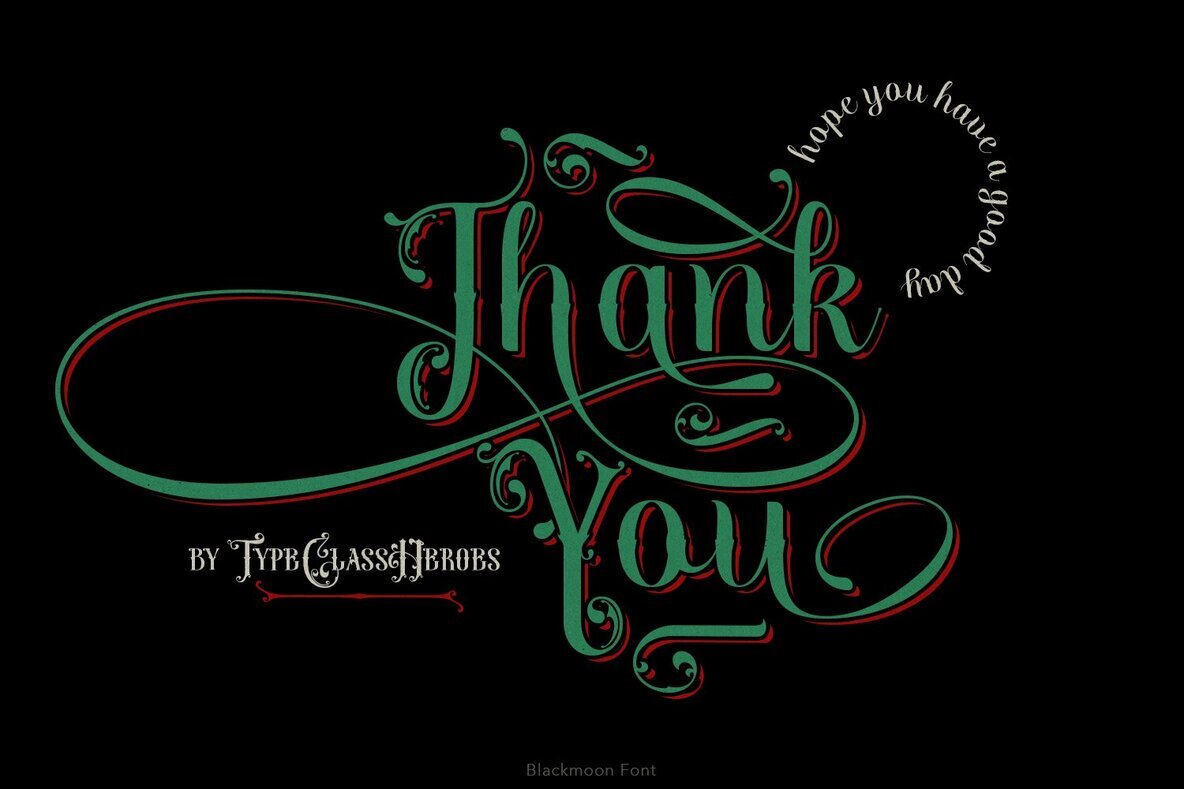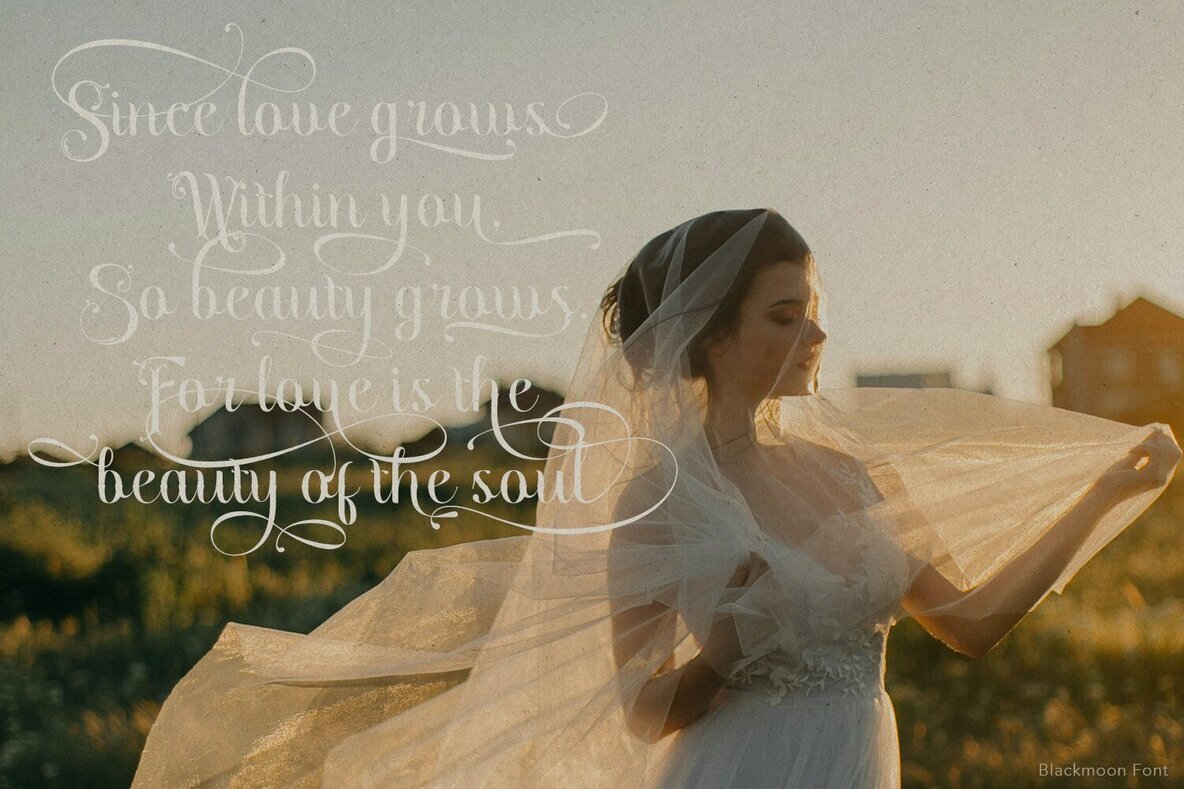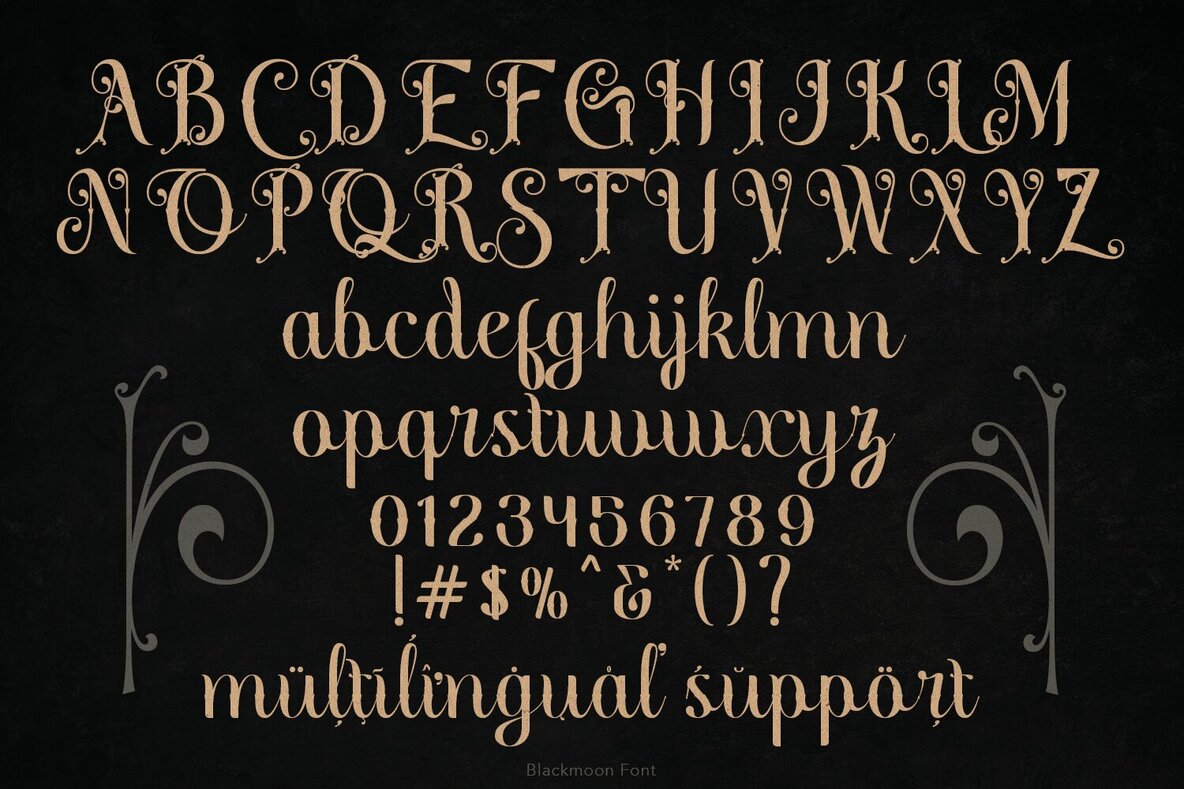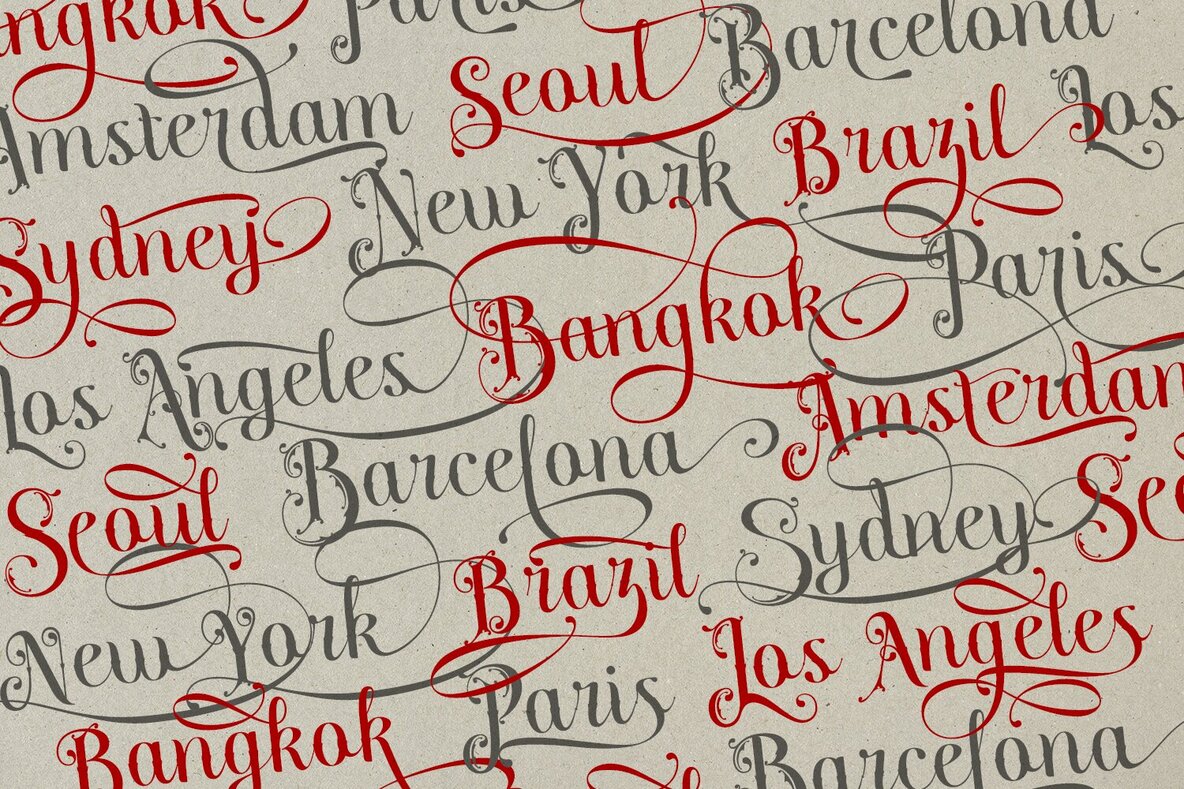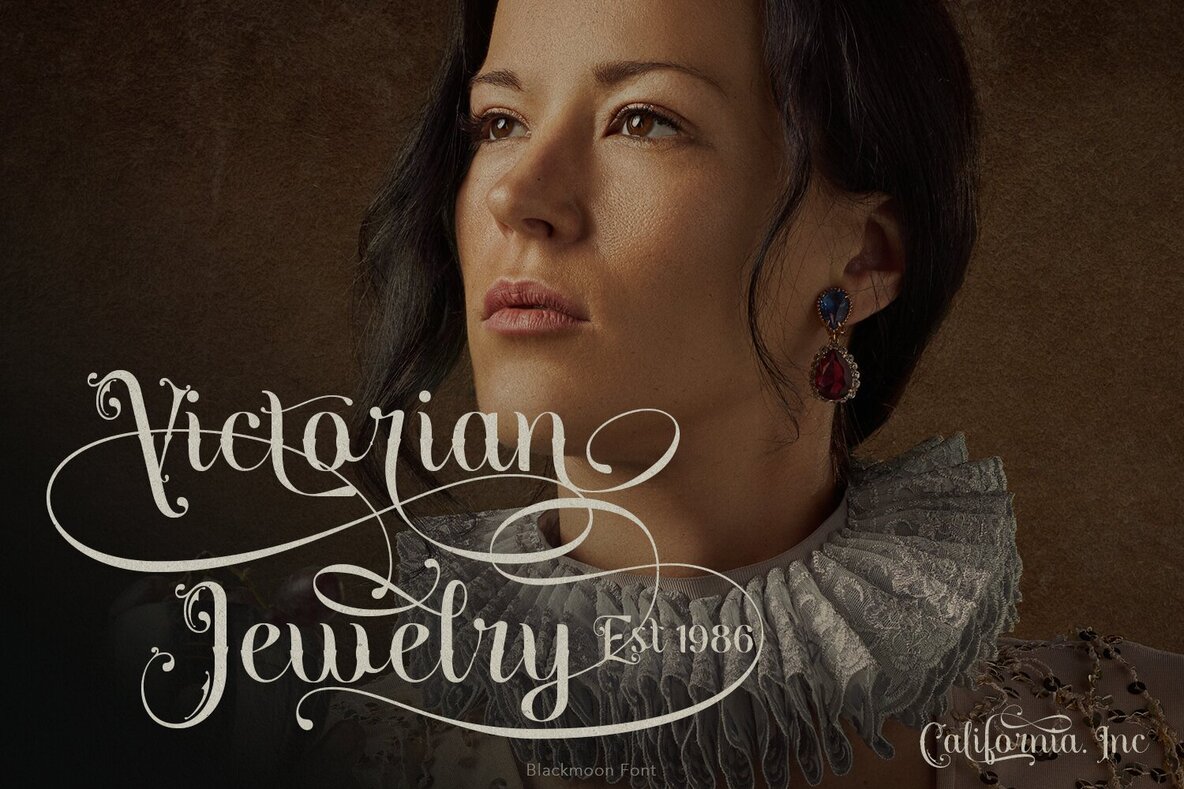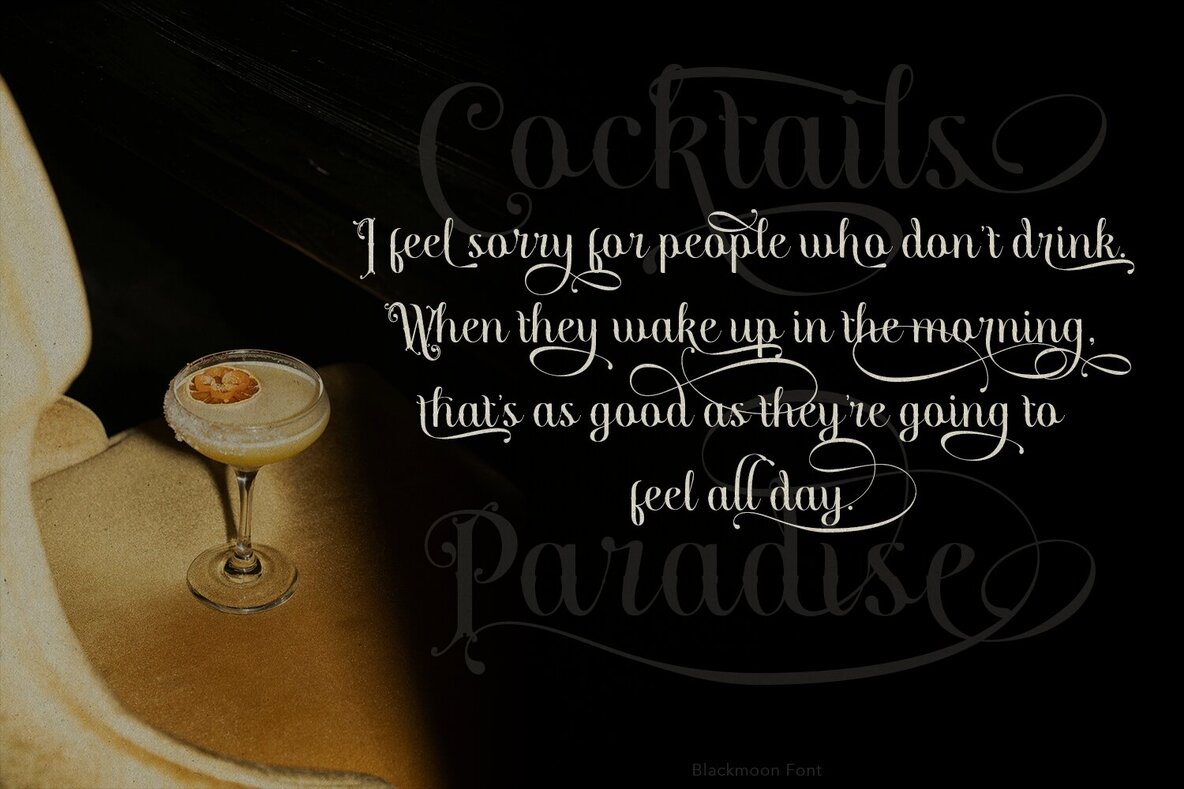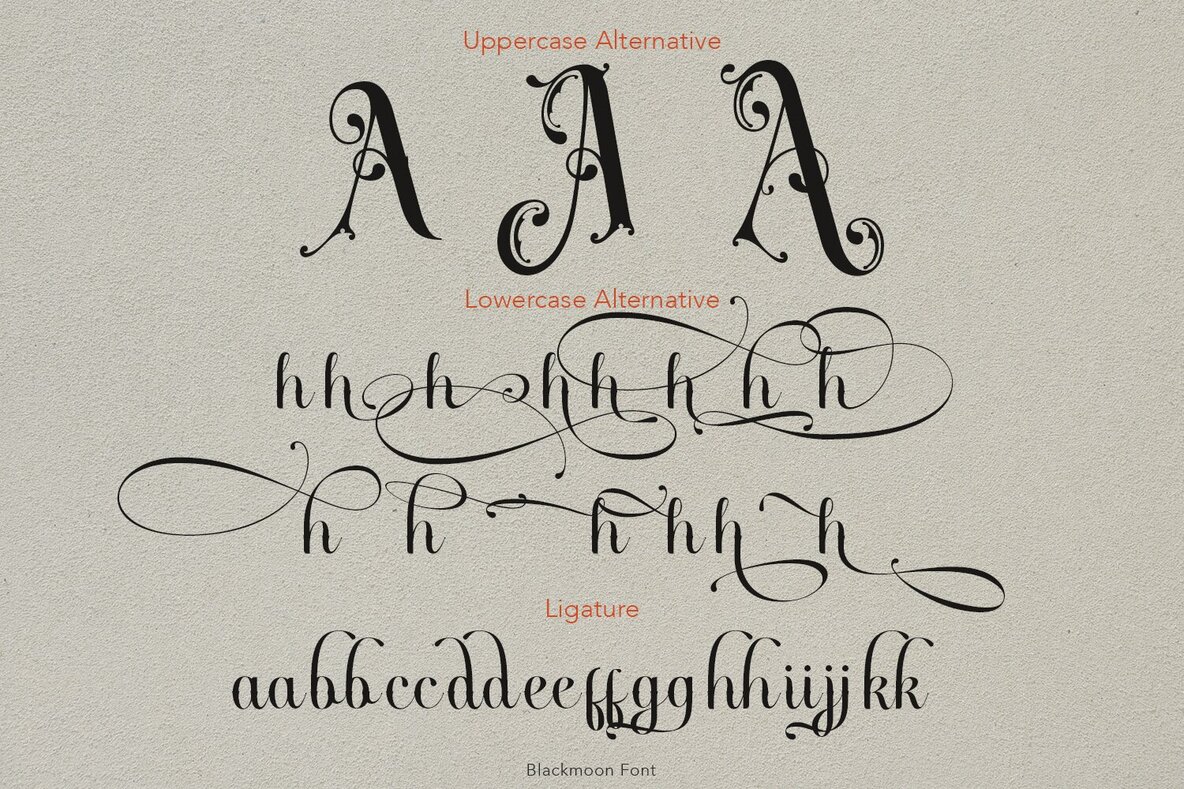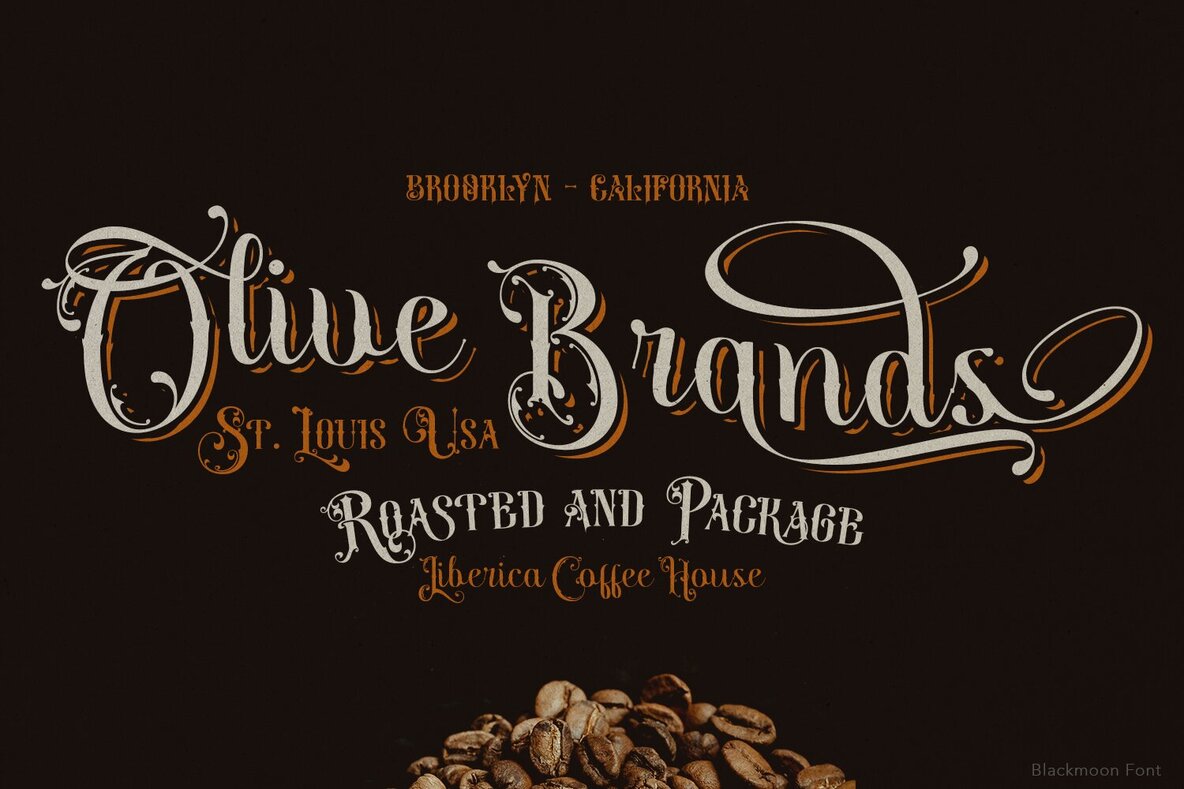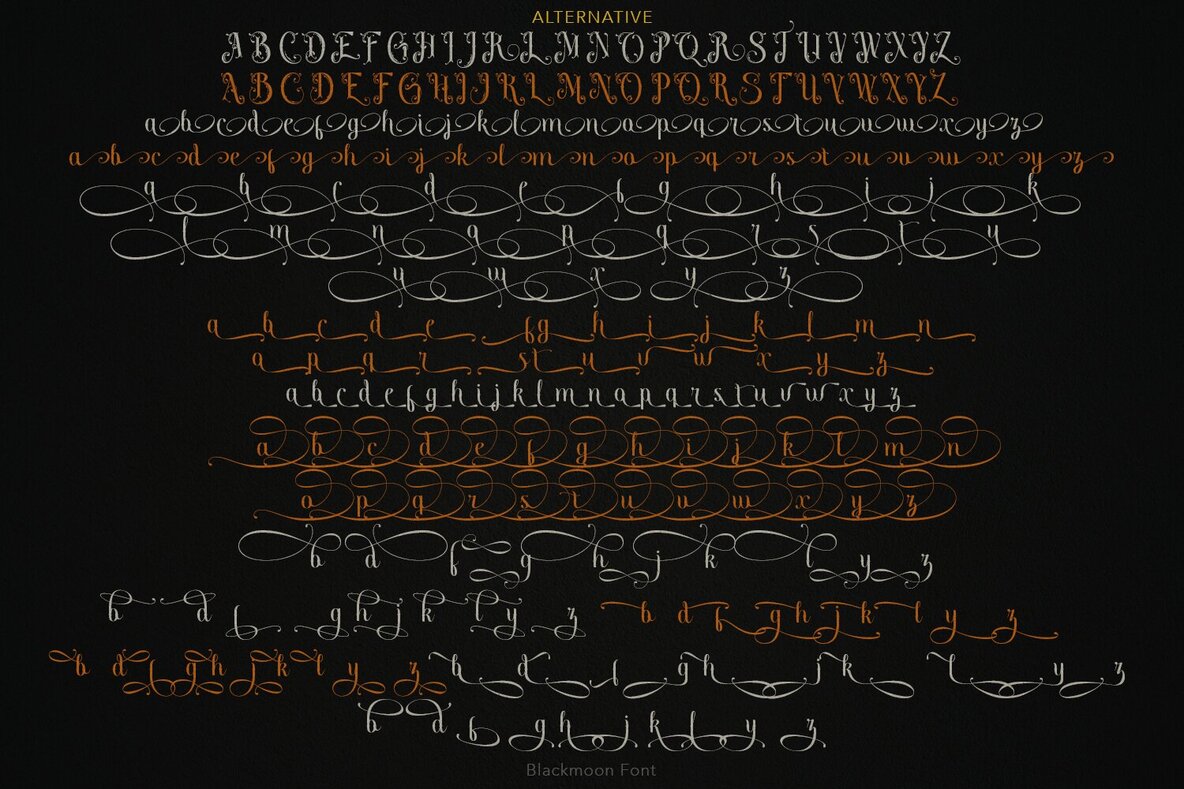
Blackmoon Font
Blackmoon is a script with classic feel inspired by the typography from the 19th century, old fancy lettering, vintage illustration calligraphy. Comes with beautiful ligatures and a lot special alternative glyphs so you can create a lots with layouts and compositions. Blackmoon perfect for poster design, book covers, merchandise, fashion campaigns, newsletters, branding, advertising, wedding invitation, greeting cards, album covers, quote and more.